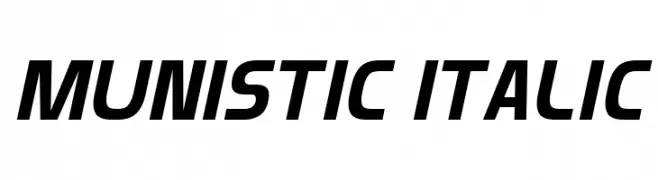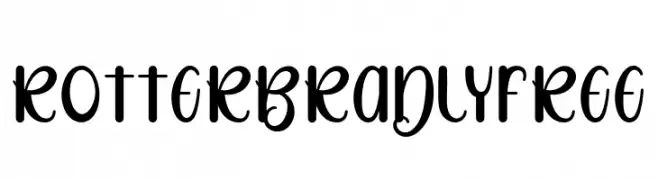
A modern, decorative font with a brick-patterned design.
A playful, rounded, and bold font with smooth curves and a friendly appearance.
A playful, hand-drawn font with bold, irregular characters and unique embellishments.
A bold, italic font with a modern and dynamic style.
A playful, handwritten font with bold, rounded strokes and a whimsical style.
A playful, whimsical font with rounded, flowing letterforms and consistent stroke width.
A bold, rounded font with a playful and friendly style.
A bold, outlined font with a modern and playful aesthetic.
A playful, noodle-inspired font with bold, intertwined strokes and a decorative style.
A bold, rounded font with a modern, playful aesthetic.